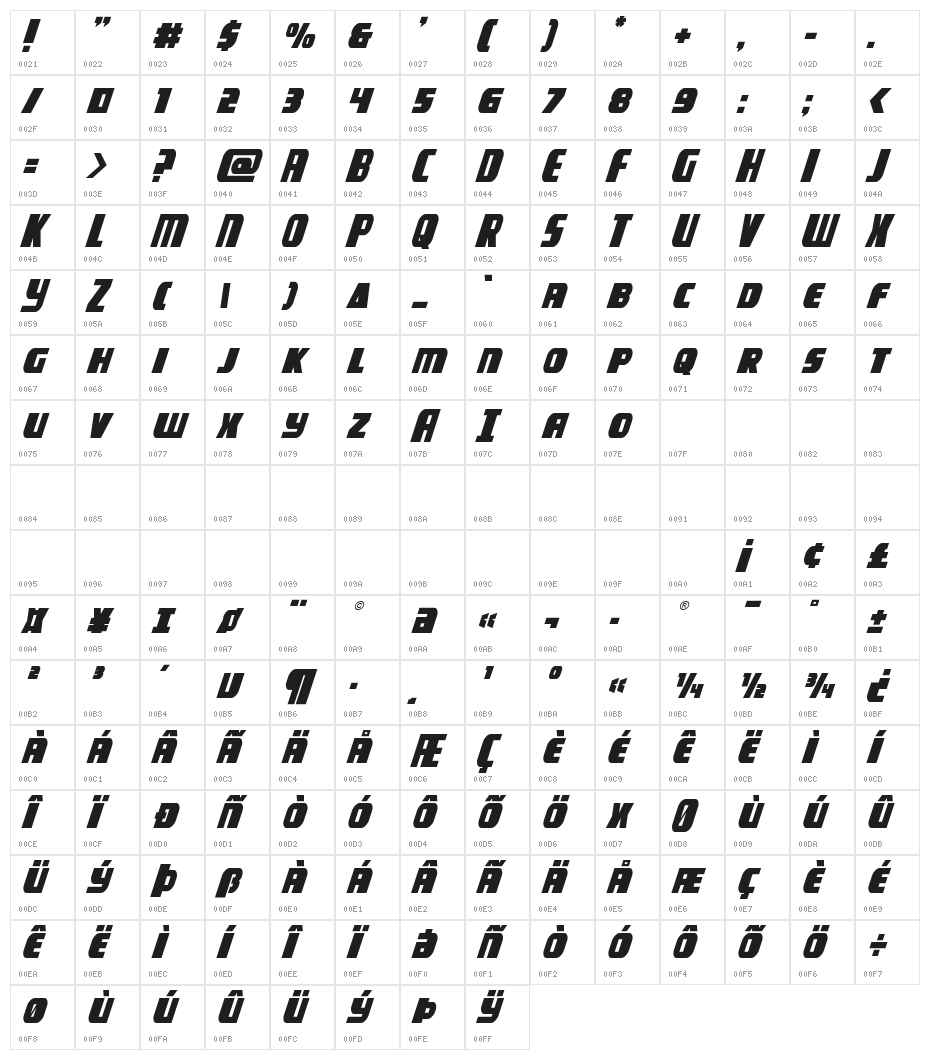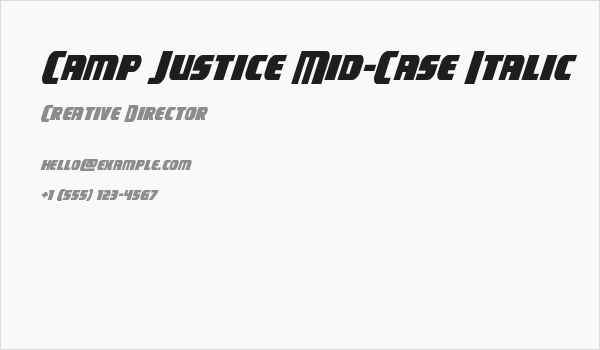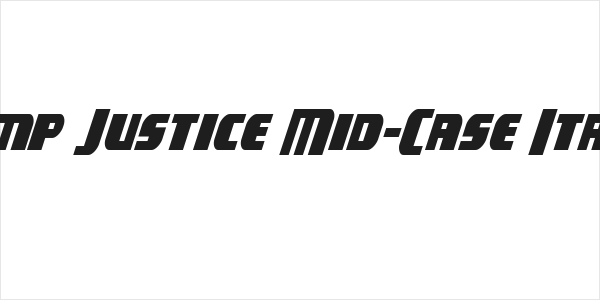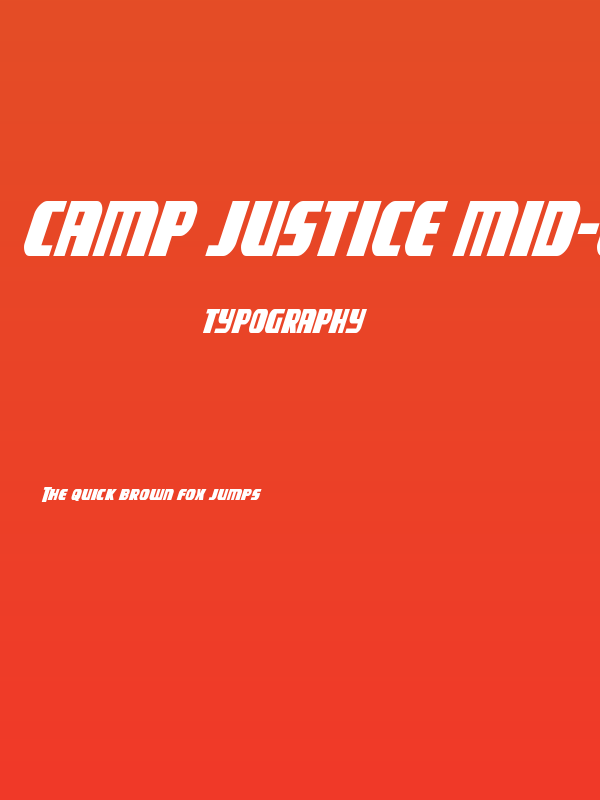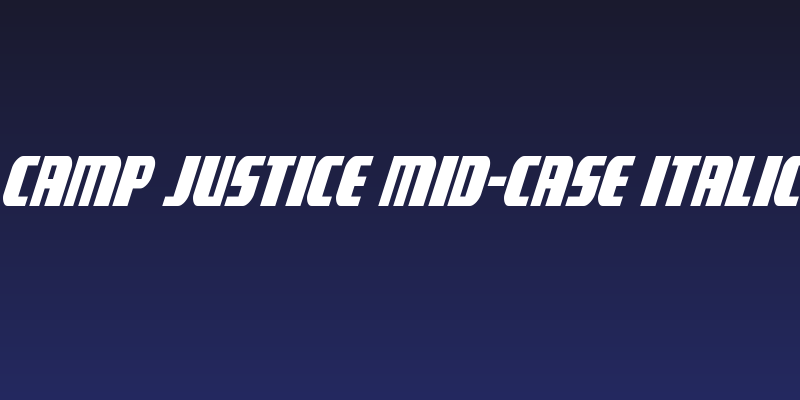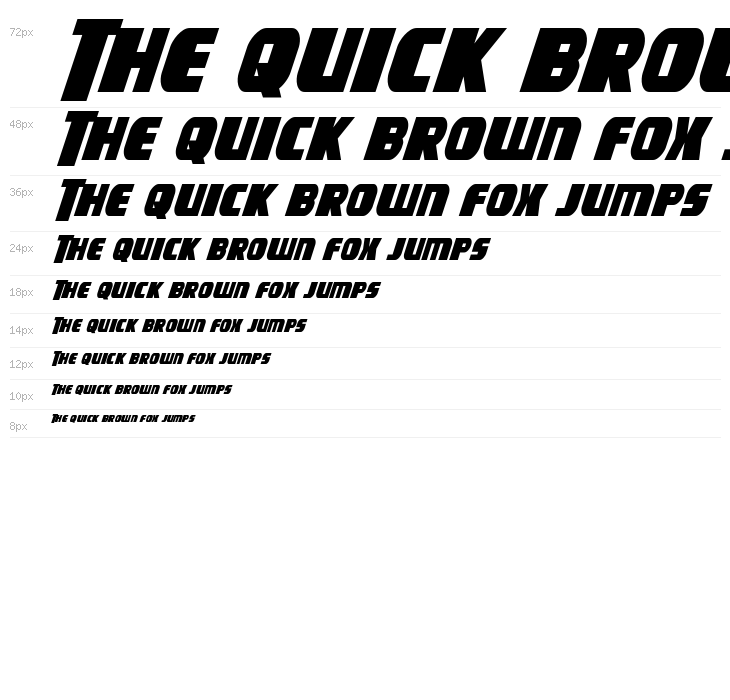
Camp Justice Mid-Case Italic Font
Camp Justice Mid-Case Italic Description
This font features a bold and dynamic style with a strong italic slant, giving it a sense of motion and energy. The characters are wide and robust, with sharp angles and a geometric design that conveys a modern and assertive look. The uppercase and lowercase letters maintain a consistent style, while the numbers and special characters complement the overall aesthetic. The font's boldness and italic nature make it ideal for impactful headlines and attention-grabbing designs.
| Proposed Projects | Ideal for sports branding, dynamic posters, and modern advertising campaigns. |